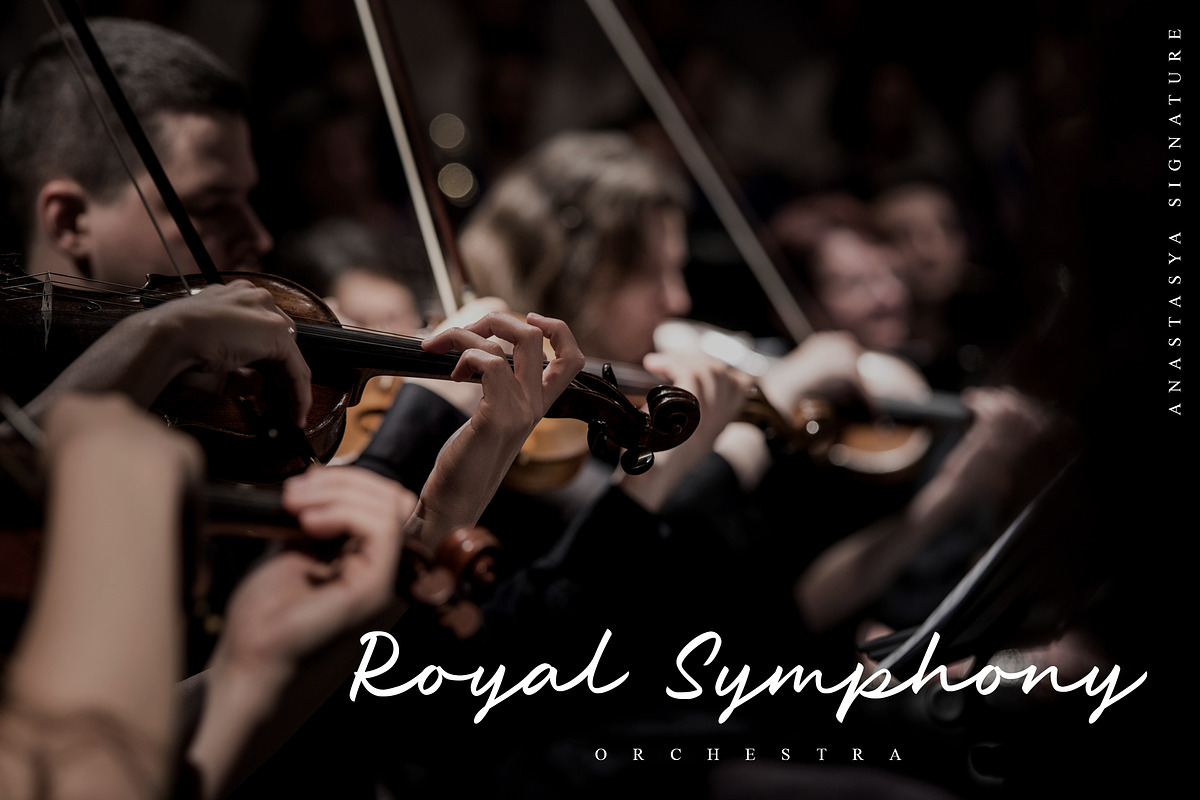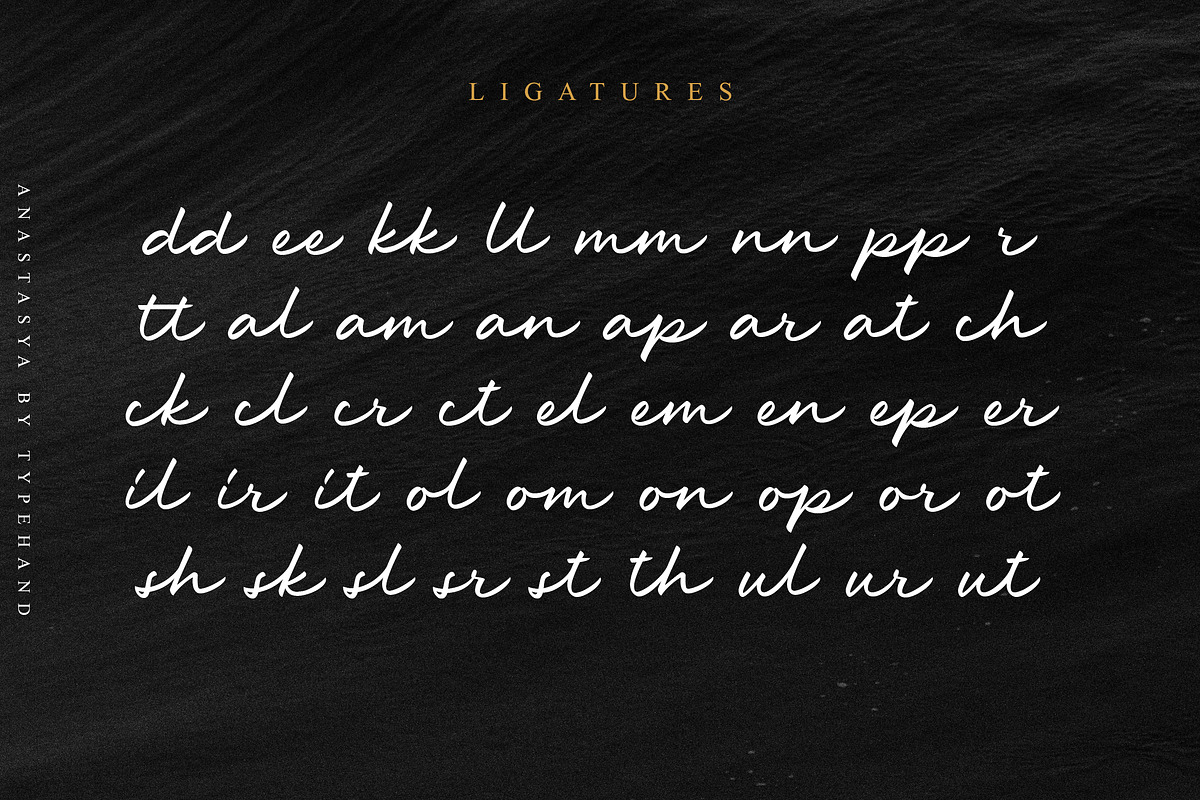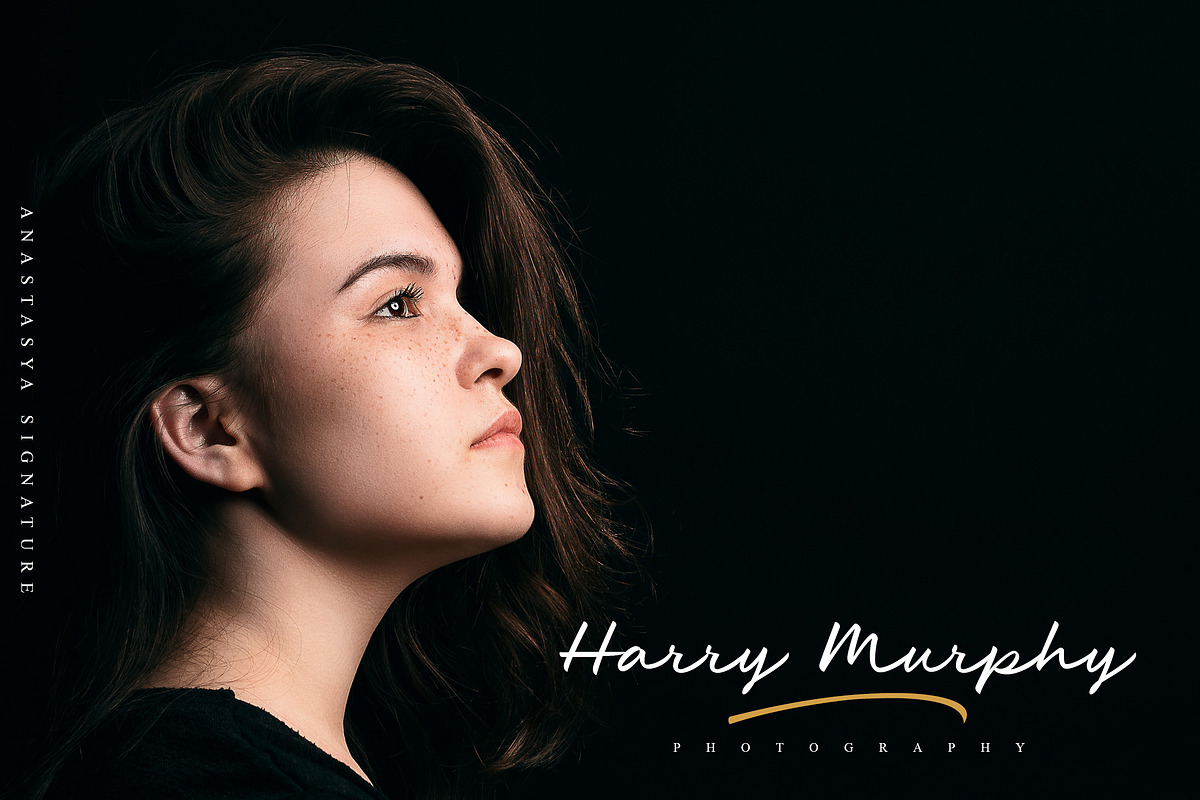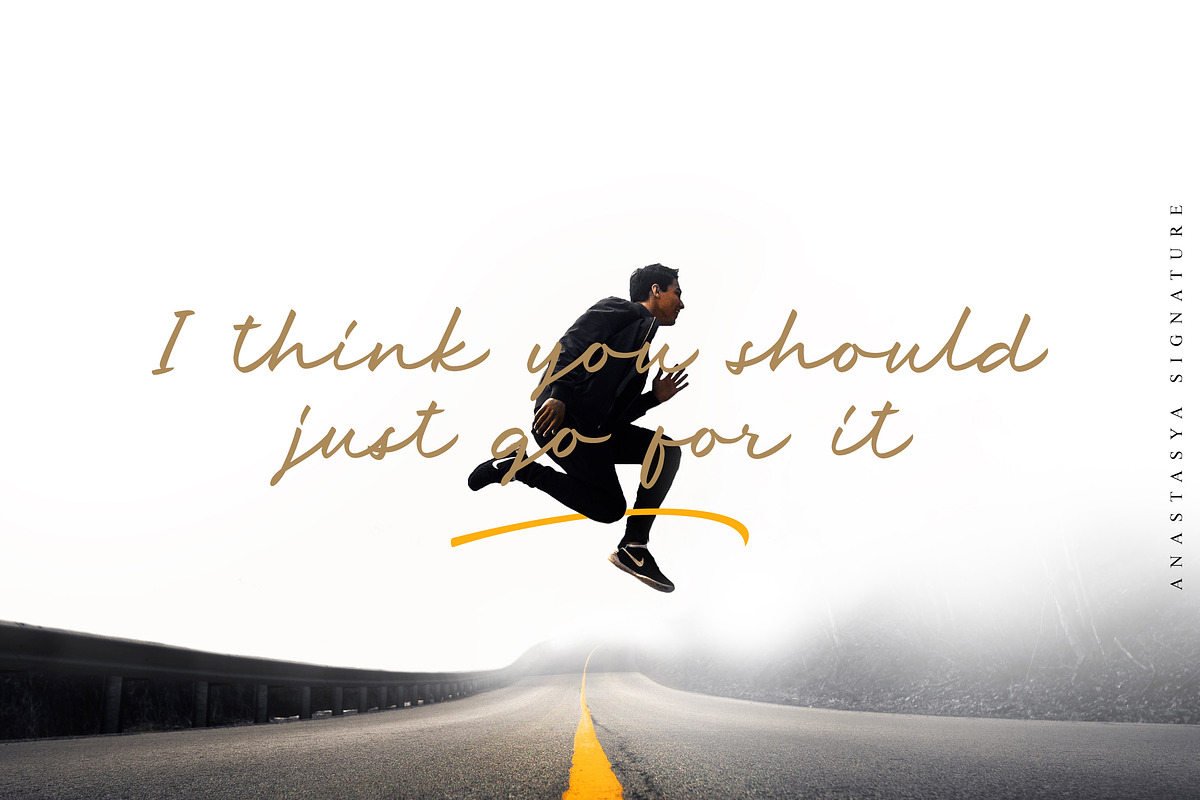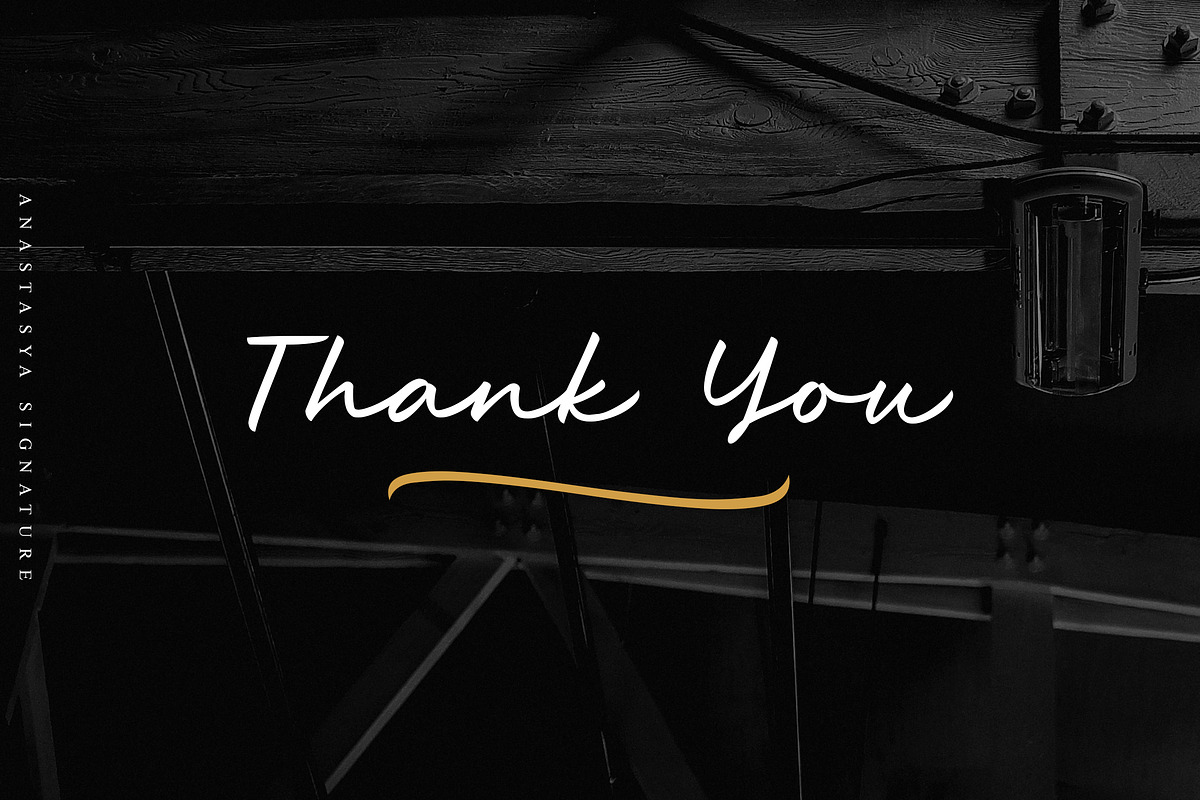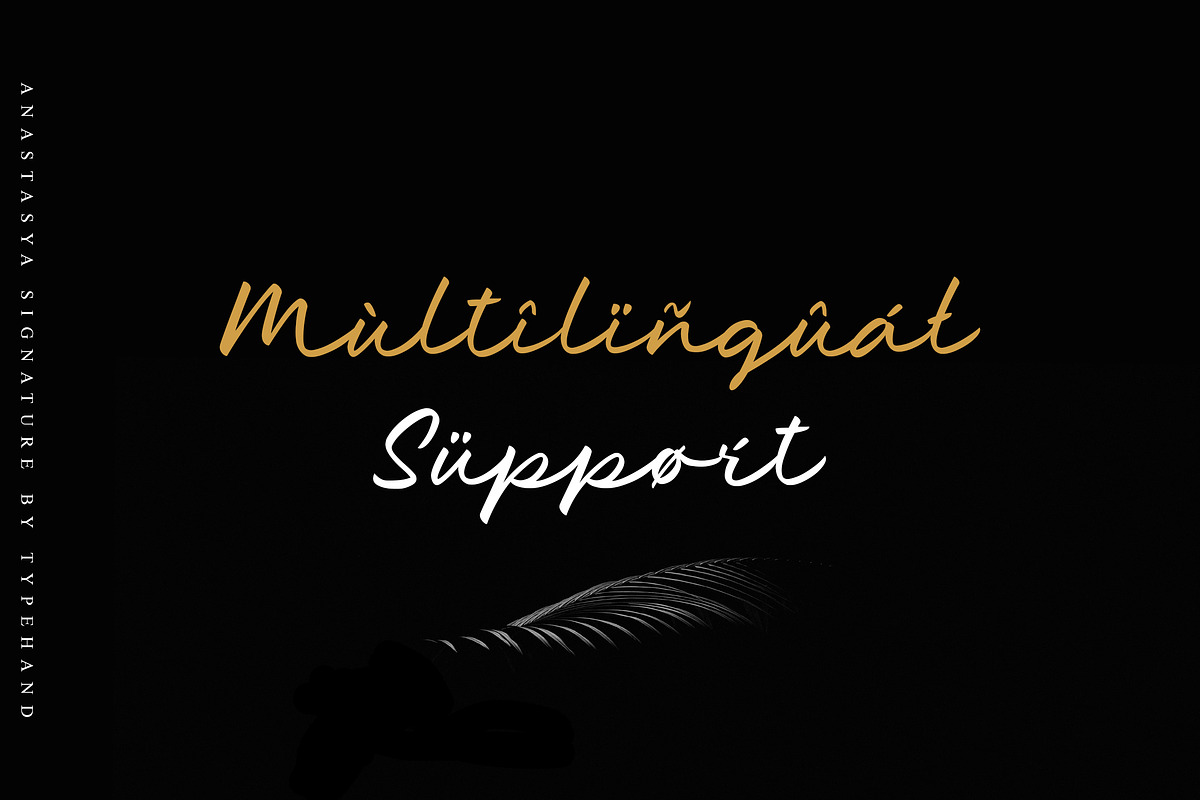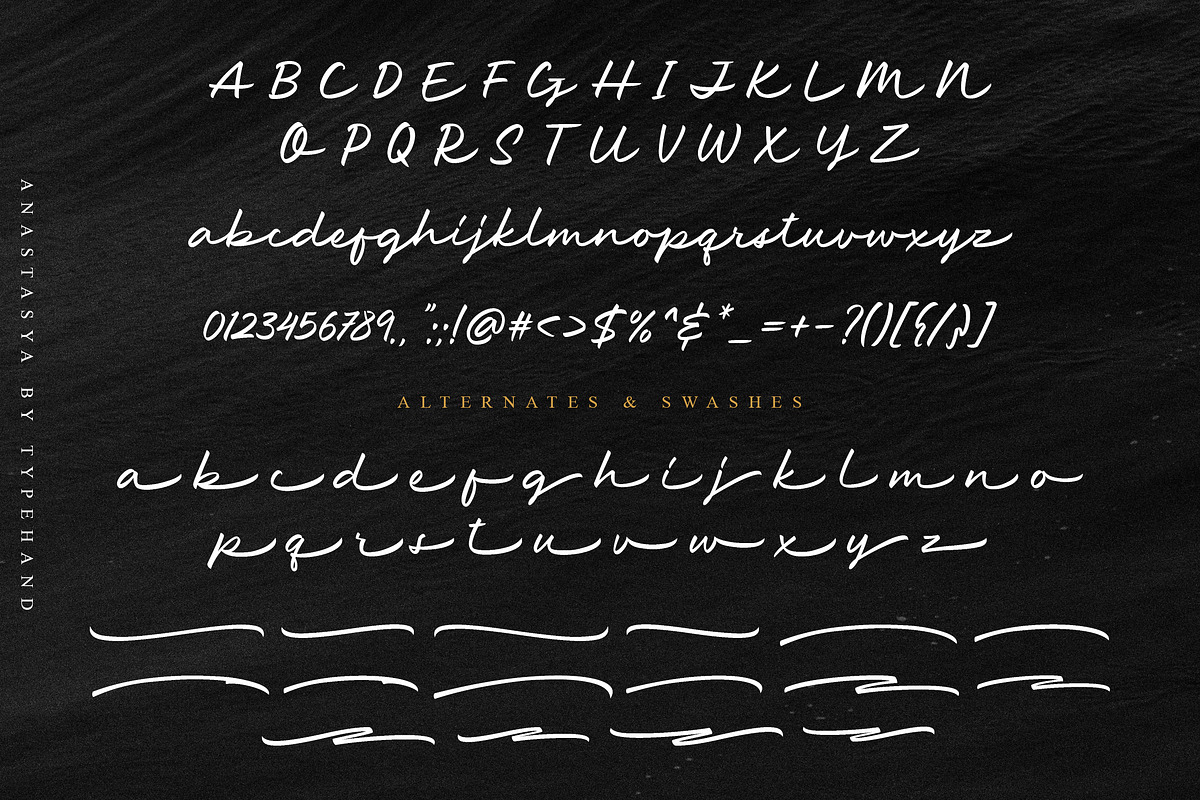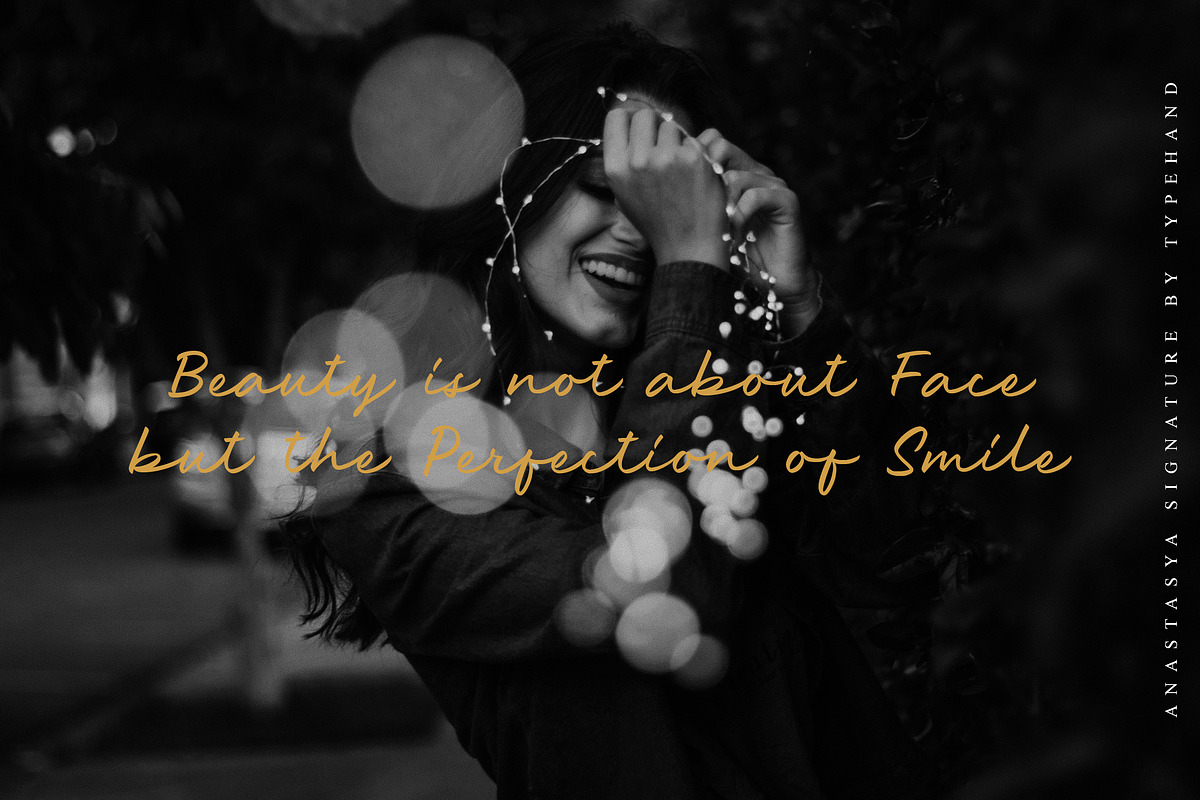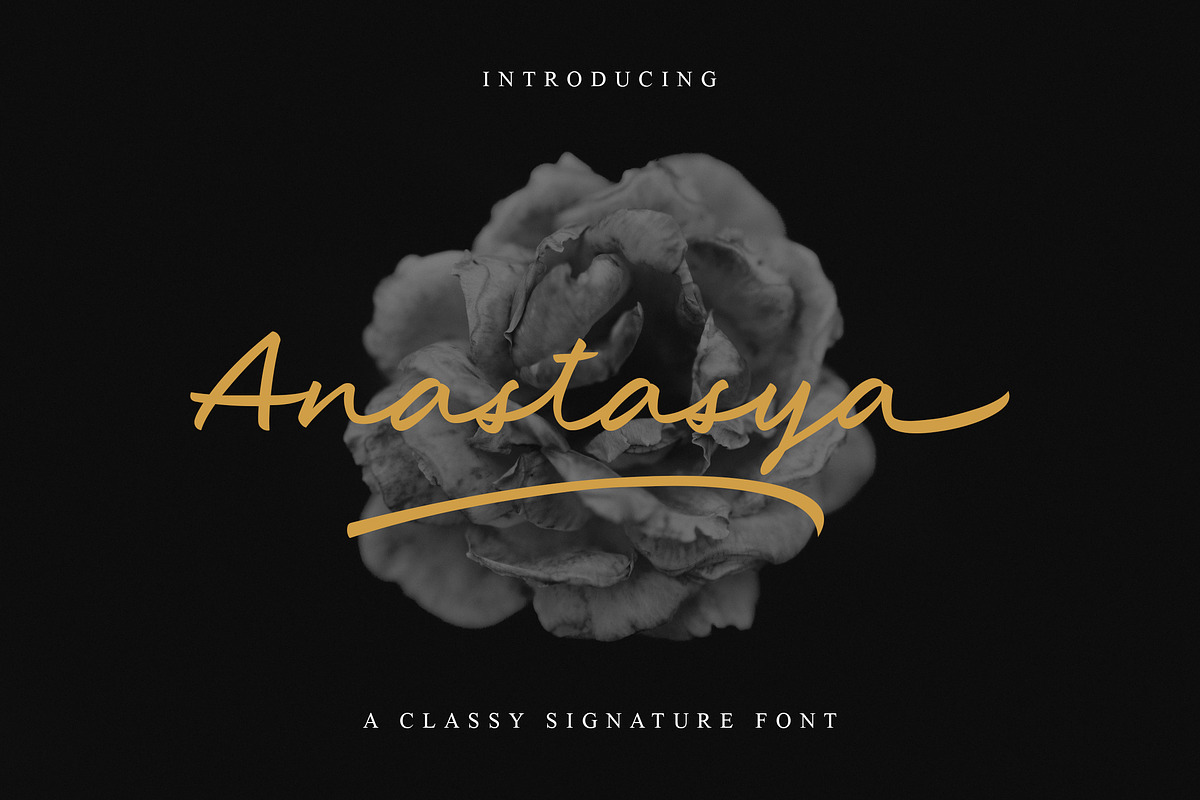
Anastasya - Signature Script
Enjoy this Anastasya. Handwriting Calligraphy Font Series from us. Anastasya is handwritten signature script with a natural & stylish flow. This collection of scripts is perfect for personal branding.
- Ligatures dd ee kk ll mm nn pp tt al am an ap ar at ch ck cl cr ct el em en ep er il ir it ol om on op or ot sh sk sl sr st th ul ur ut